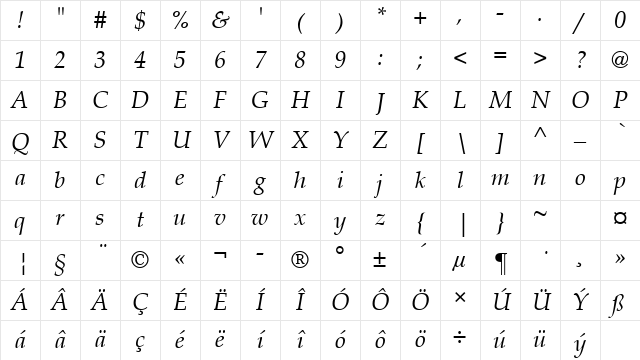
Book Antiqua CE Italic Free Font
Book Antiqua CE Italic
Design Context for Book Antiqua CE
Book Antiqua CE is a composed and adaptable typeface that performs quietly and consistently across a wide range of design contexts. The slanted form adds forward momentum and visual energy.
Pro Tip: Use Book Antiqua CE for emphasis, pull quotes, and subheadings where its slanted energy can add rhythm to the layout.